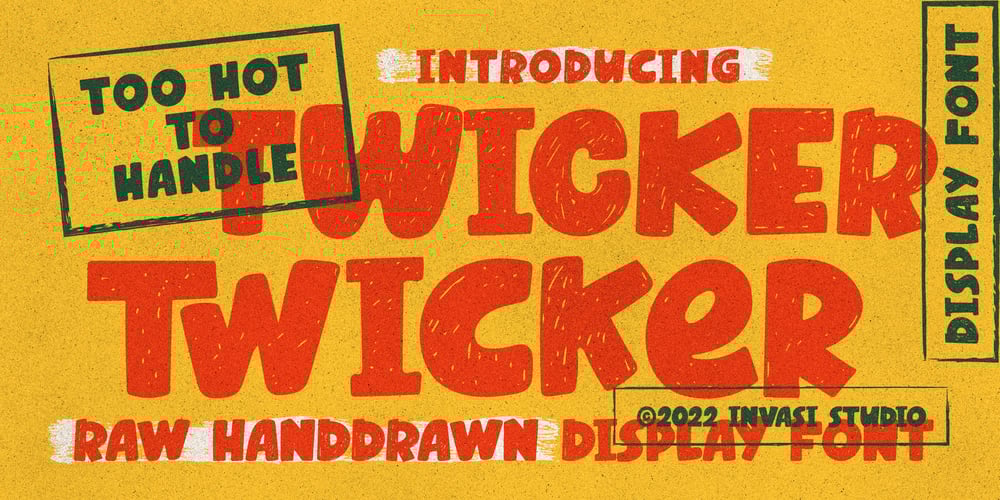
Twicker
Twicker font
Twicker Font Family was designed by Gha Arizal and published by Invasi Studio. Twicker contains 1 styles and family package options. The Twicker font comes in playful sketch, textured, and grunge-shaded styles. Detail glyph appears with bubble shape. With its unique hand-drawn look, it’s very appealing. A variety of alternate glyphs and ligatures give you lots of options to fit your project. This is perfect for any branding project or packaging that needs a playful feel.